bBox Type
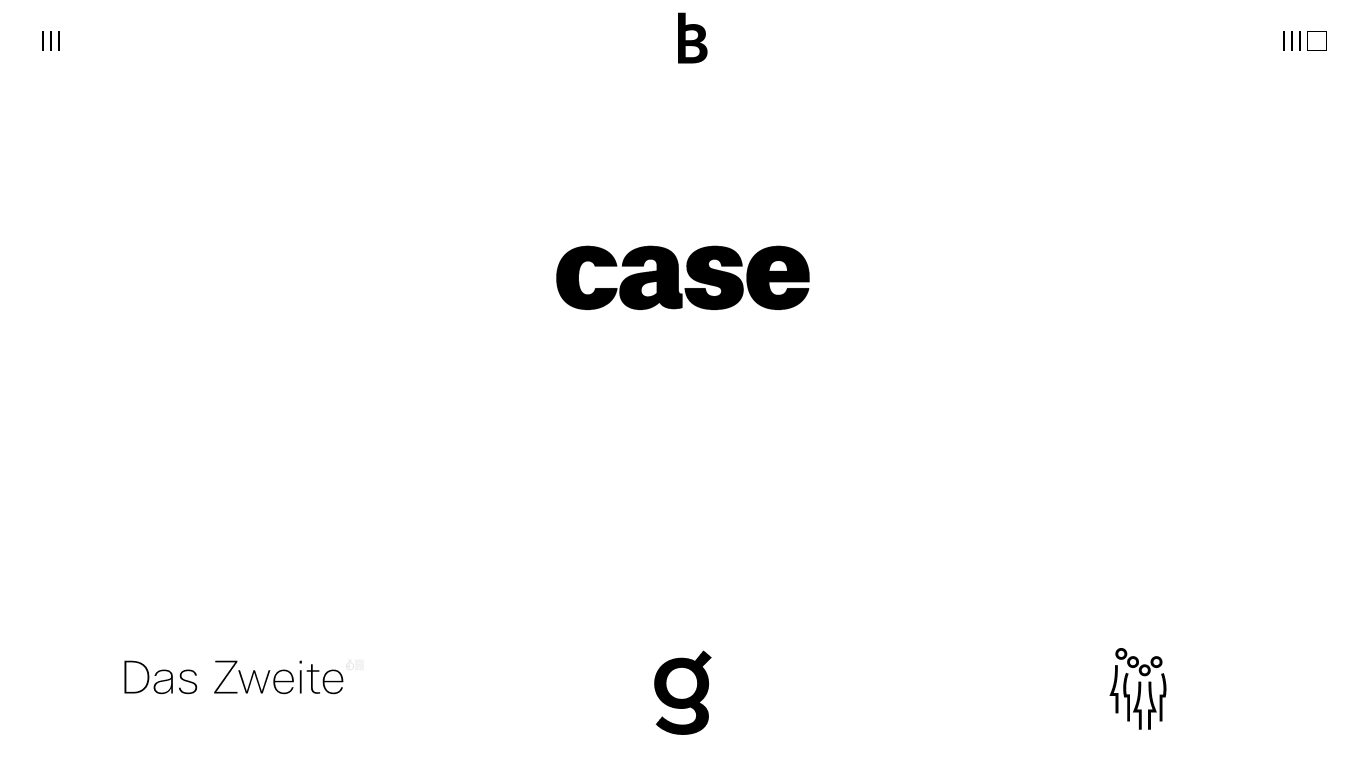
bBox Type is an independent type foundry based in Berlin, specializing in creating versatile and contemporary typefaces. Founded in 2017 by Ralph du Carrois and Anja Meiners, the studio is renowned for developing the Fira typeface family, including Fira Sans and FiraGO, designed for optimal readability across digital platforms. Their expertise lies in crafting custom type solutions that seamlessly integrate with brand identities, reflecting a commitment to typographic excellence.